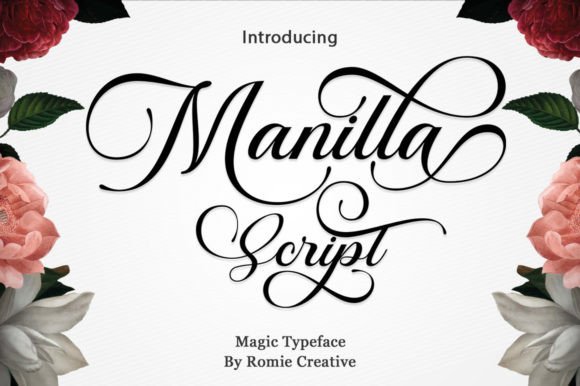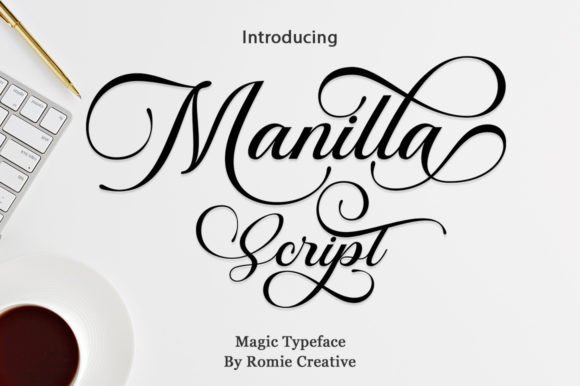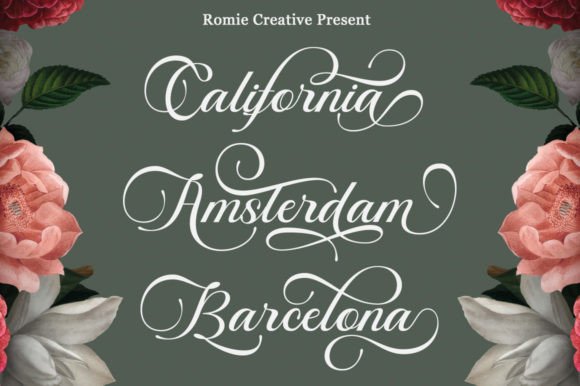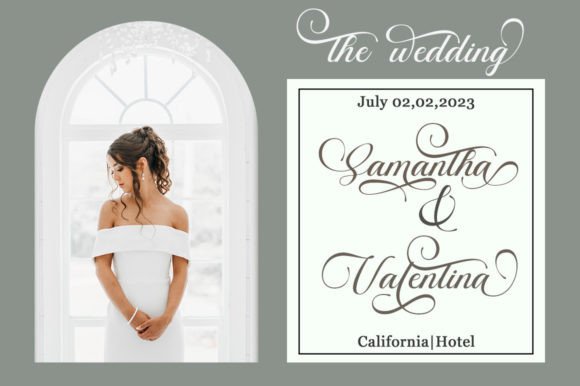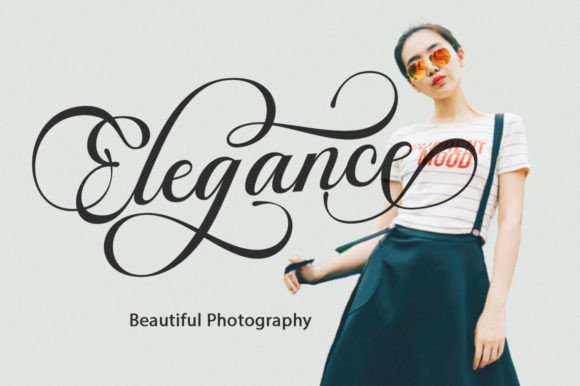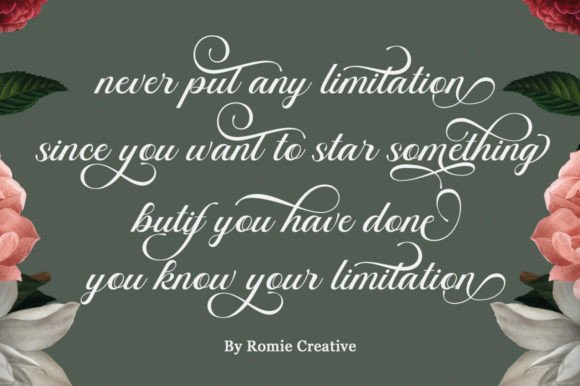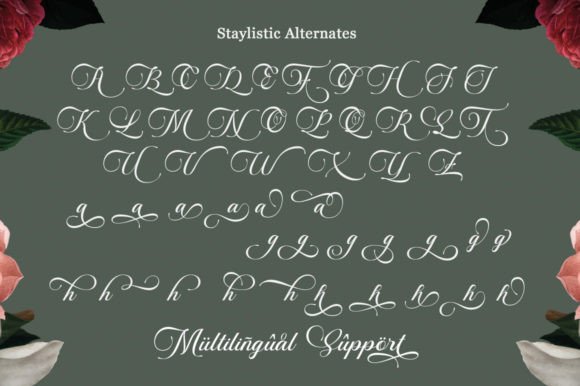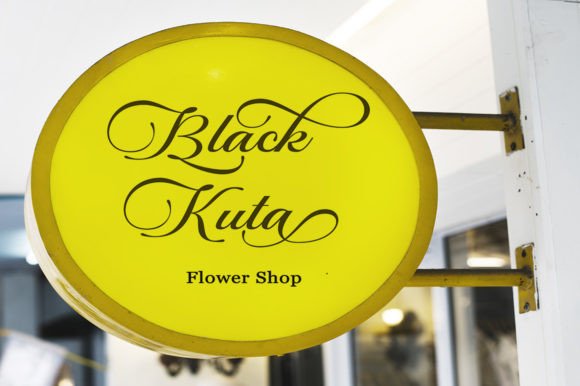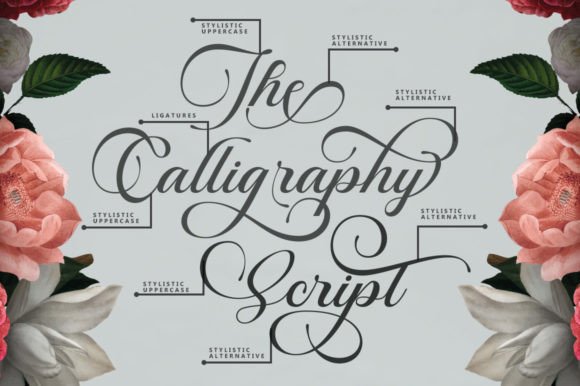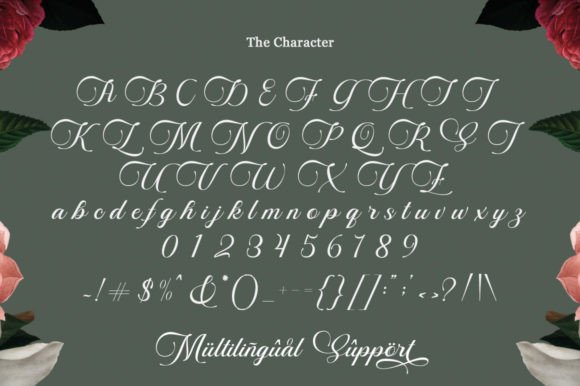
Manilla Script Font
What Is Manilla Script Font?
Manilla Script Font is a dazzling script typeface designed to bring elegance and sophistication to your projects. Each letter is crafted with careful detail, offering a smooth flow and refined style. Because of its balanced curves and clean strokes, this font feels both classic and fresh.
You will find that Manilla Script works beautifully in many creative settings, making it a valuable addition to any font collection.
Manilla Script is highly versatile. For example, you can use it on wedding invitations, greeting cards, and event programs. Its polished look adds a special touch to any celebration.
In addition, this font is perfect for logos and branding projects. Its graceful style helps build a memorable and professional identity.
You can also apply it to product packaging, labels, and handmade items. The elegant details will make your designs feel more high-end.
When you design social media graphics or blog headers, Manilla Script brings a refined and eye-catching appearance that stands out easily. Even simple quotes or announcements look more appealing with this typeface.
Why Should You Choose Manilla Script Font?
There are many reasons why designers love Manilla Script. First, it is easy to read despite its detailed style. Whether you use it in small labels or big headlines, every letter stays clear and beautiful.
Also, this font pairs well with clean serif or sans-serif fonts. As a result, you can build layouts that feel balanced and modern.
Because it is fully PUA encoded, you can access all glyphs, swashes, and ligatures without needing extra tools. This makes it easy to customize your designs.
Designers appreciate that it looks polished out of the box. This saves time and helps you deliver professional results quickly.
Manilla Script Font brings elegance and warmth to every project. For example, if you want your work to feel stylish and timeless, this font is a perfect choice.
Even minimalist layouts gain personality and sophistication with Manilla Script. Whether you create invitations, logos, or digital content, this font helps you stand out.
In addition, using a detailed script shows your commitment to high-quality design. This builds trust with clients and makes your work more memorable.
Manilla Script Font is more than just a typeface—it is a design asset that helps you communicate ideas with style and clarity. From branding and packaging to social media and events, this font adapts easily and leaves a lasting impression.